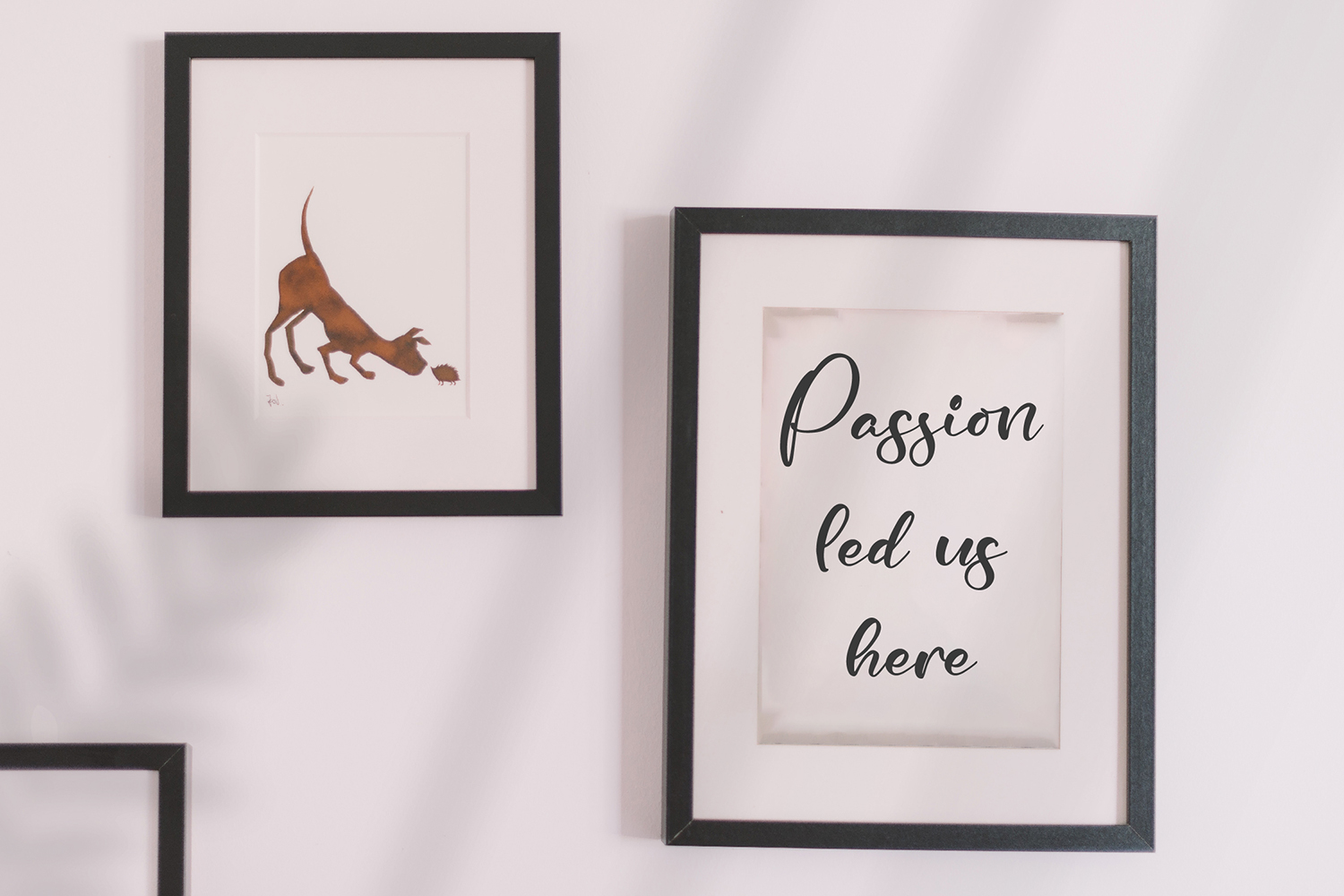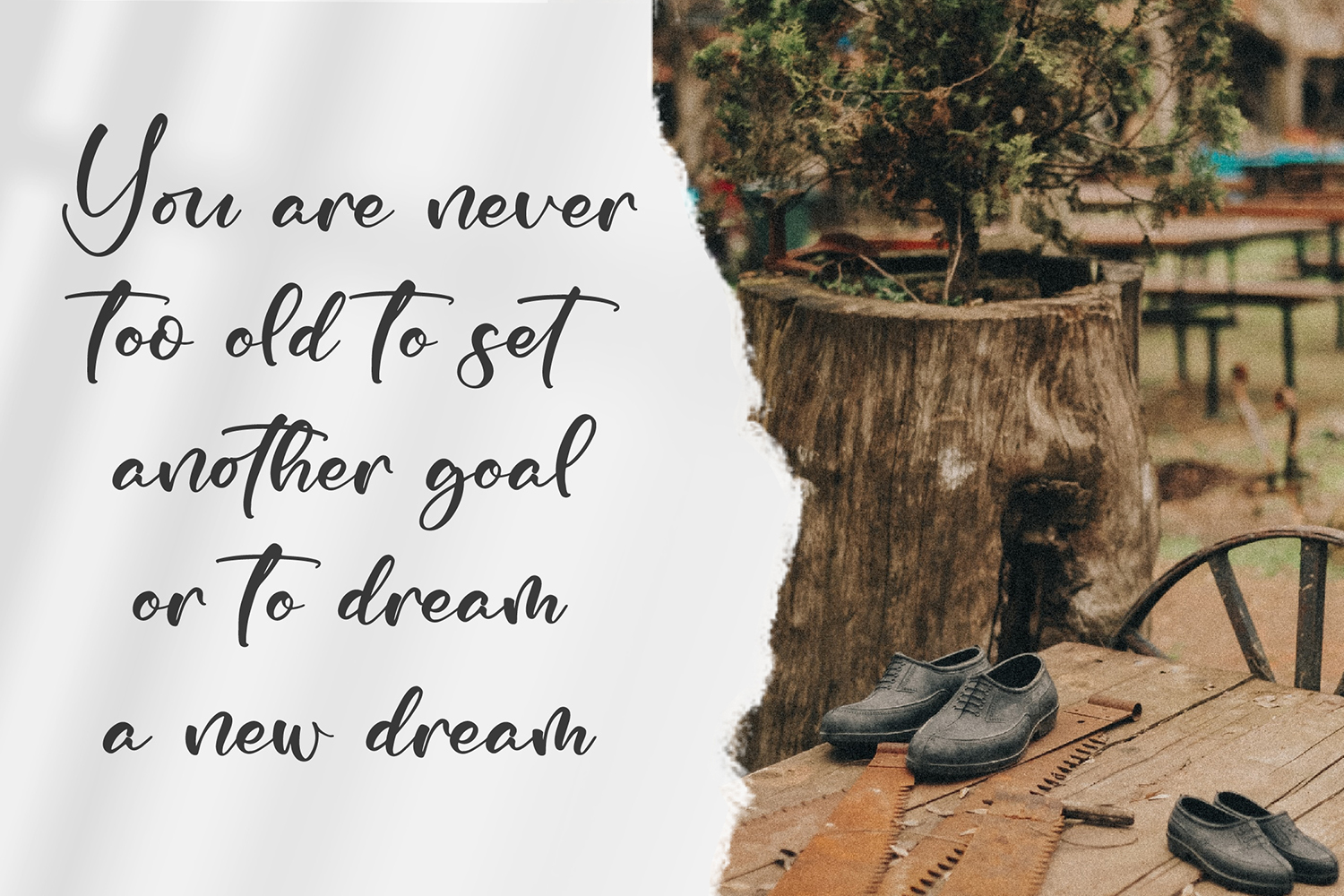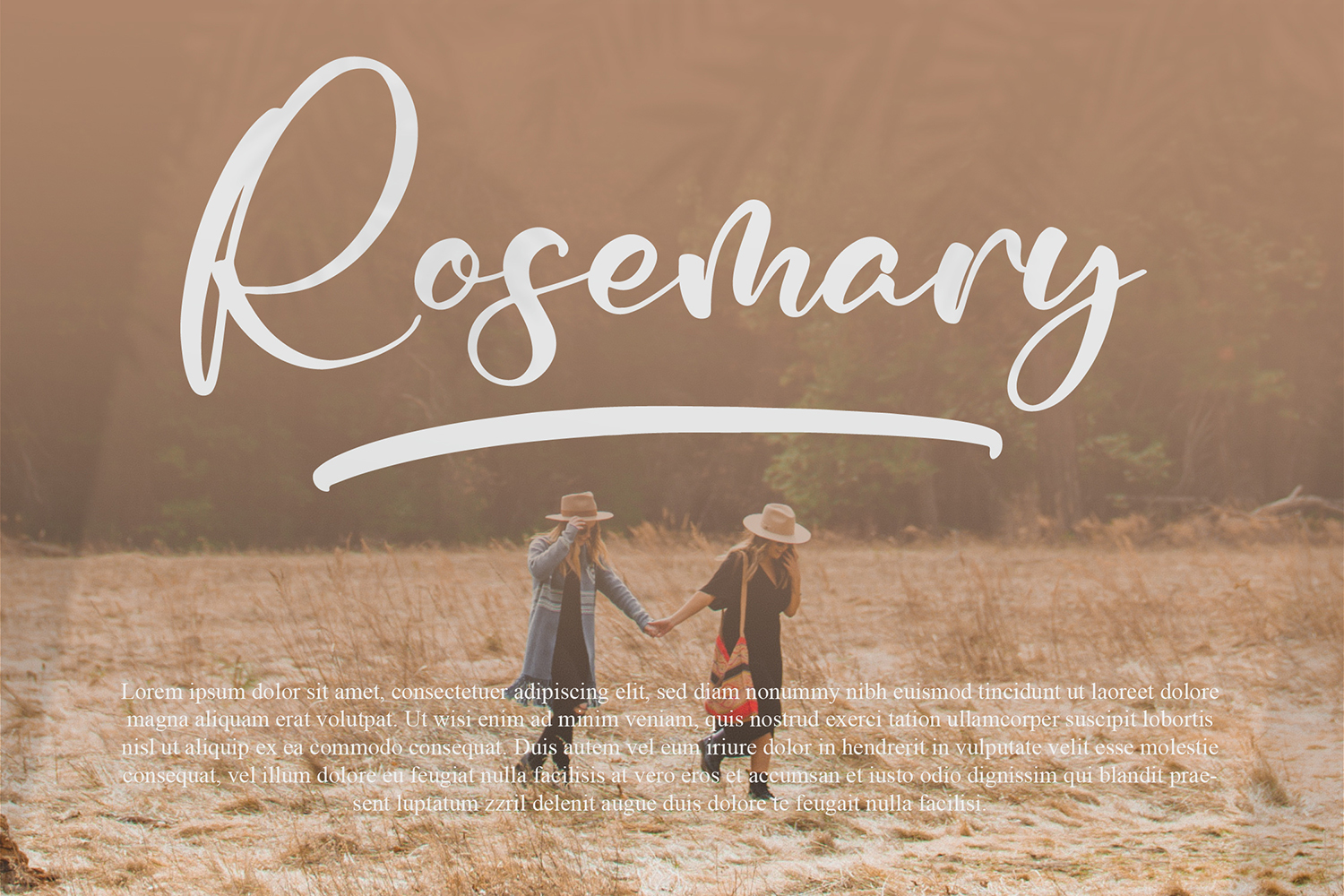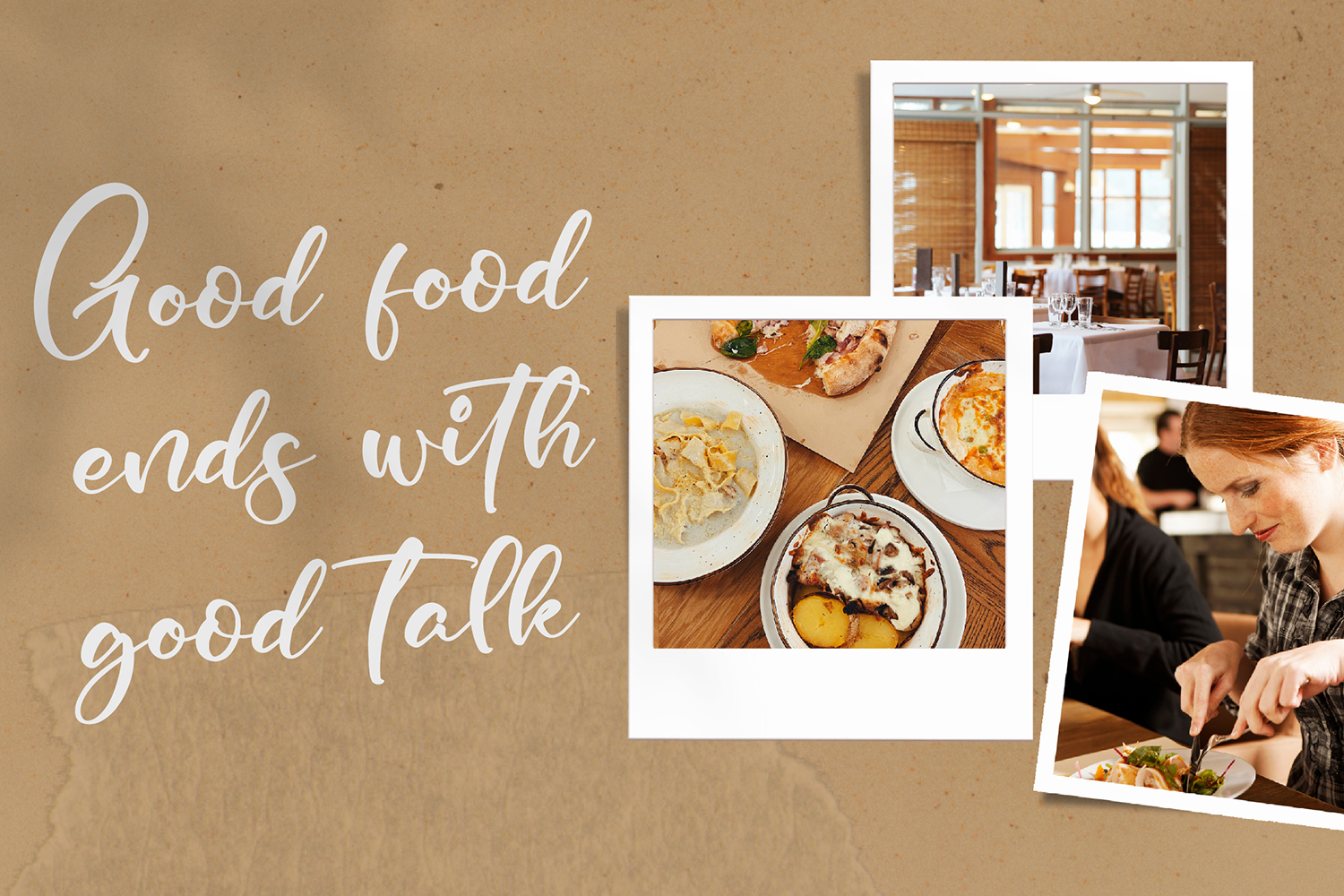
Pyttons Free Font
Discover Pyttons, a delightful script font adorned with enchanting and lively characters that appear to dance gracefully along the baseline. Incorporate this font into your most imaginative concepts, and witness the remarkable enhancement it brings to their prominence. This free typeface was designed by a talented Glorytype Studio. If you like it don’t forget to check out the full version.